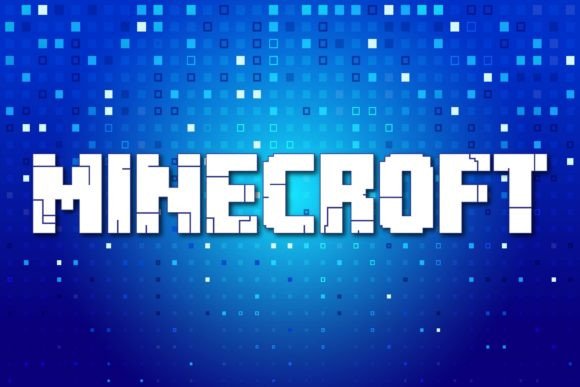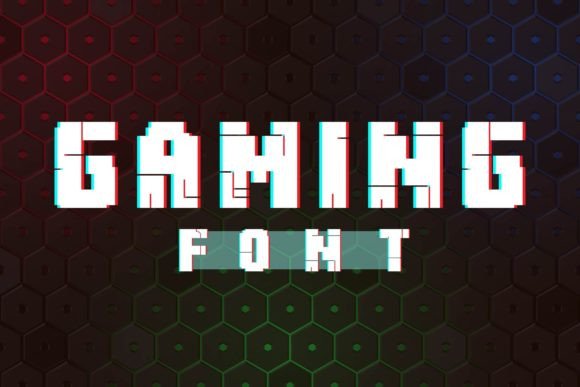
Minecroft Font: A Playful Display Font for Bold Logo Design
About the Minecroft Font
Welcome to the world of Minecroft Font, a typeface that will inspire your next great project. Minecroft is a fun and playful display font that transports your designs into a vibrant world of creativity and joy. With bold, dynamic letterforms and an adventurous spirit, it captures the essence of playfulness. Ideal for projects seeking a whimsical and lively aesthetic, Minecroft infuses a delightful and imaginative flair into your creative expressions.
Minecroft excels as a display font for headlines, short impactful phrases in posters, or playful branding elements. Its bold forms work well in packaging design, particularly for products targeting a younger demographic or those emphasizing fun and creativity. Avoid using it for body text or long paragraphs; its playful nature can become overwhelming and hinder readability in extended use.
The font’s personality is undeniably bold and playful, yet retains a friendly approachability. It pairs well with clean sans-serif fonts like Open Sans for a balanced contrast, or a more geometric sans-serif like Futura for a modern feel. For a touch of elegance that complements its whimsy, consider pairing it with a delicate script font.
Using Minecroft with a serif typeface like Merriweather would provide a sophisticated grounding, especially useful when incorporating longer descriptive text. This contrast ensures the font’s playful energy remains a focal point without sacrificing overall readability or design cohesiveness.
Minecroft Font Usage Examples
Minecroft Font Example